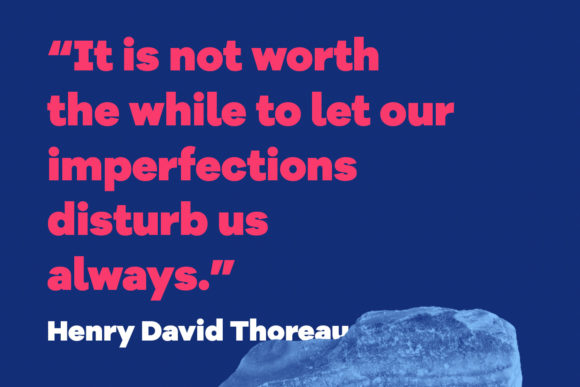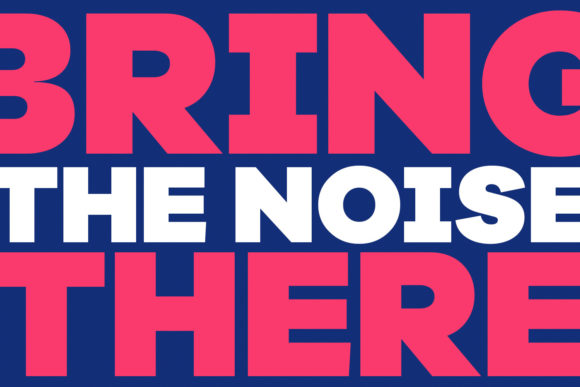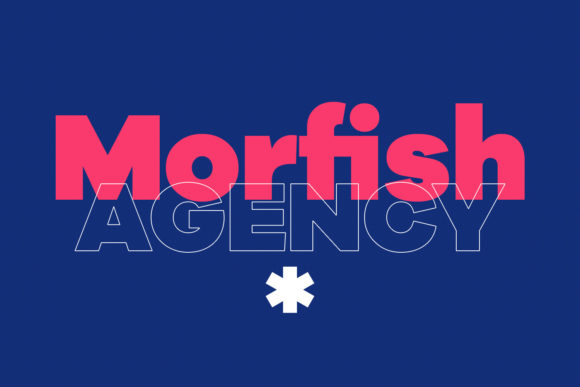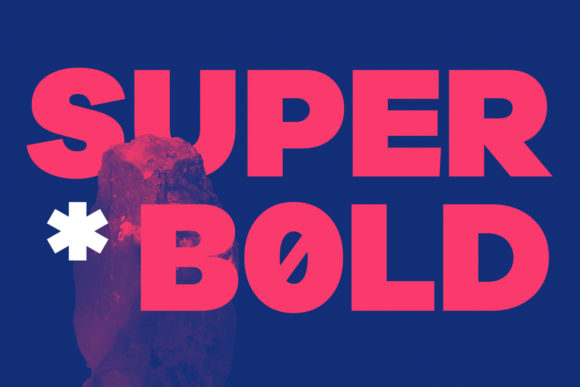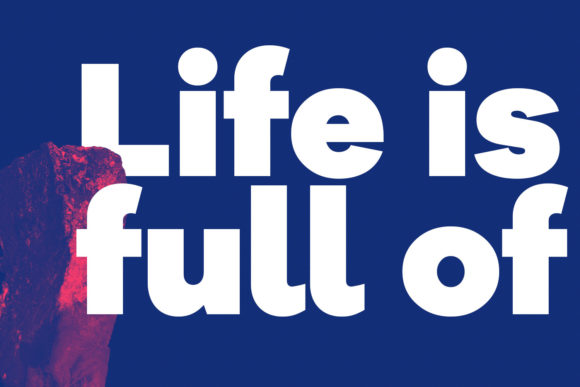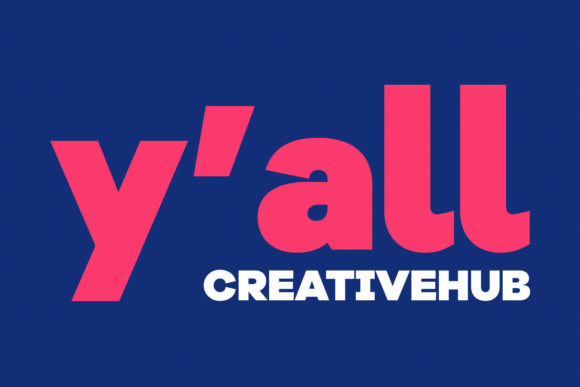
Bolgart Font: Elevate Your Designs with a Cool, Bold, and Thick Lettered Display Font
In the world of typography, fonts play a crucial role in conveying the tone and personality of a design. For designers and crafters looking to make a statement, Bolgart font is an excellent choice. This cool, bold, and thick lettered display font is designed to add a touch of strength, confidence, and dynamism to your designs. In this article, we’ll explore the features and benefits of Bolgart font, and how it can elevate your designs to the next level.
What is Bolgart Font?
Bolgart font is a display font that boasts a unique and striking appearance. Its bold and thick lettering makes it perfect for headlines, titles, and other design elements that require attention-grabbing typography. The font’s strong and confident personality is sure to make a lasting impression on your audience, making it an excellent choice for designers and crafters who want to add a touch of sophistication and style to their work.
Key Features of Bolgart Font
- Bold and Thick Lettering: Bolgart font features bold and thick lettering that makes it perfect for display purposes.
- Strong and Confident Personality: The font’s strong and confident personality makes it an excellent choice for designers and crafters who want to add a touch of sophistication and style to their work.
- Dynamic and Versatile: Bolgart font is dynamic and versatile, making it suitable for a wide range of design projects, from posters and flyers to logos and branding materials.
- Easily Readable: Despite its bold and thick lettering, Bolgart font is easily readable, making it perfect for use in a variety of design applications.
Benefits of Using Bolgart Font
So, why should you choose Bolgart font for your design projects? Here are just a few benefits of using this amazing font:
- Adds Tons of Stylish Character: Bolgart font can add tons of stylish character to your designs, making them stand out from the crowd.
- Perfect for Display Purposes: The font’s bold and thick lettering makes it perfect for display purposes, such as headlines, titles, and other design elements.
- Versatile and Dynamic: Bolgart font is versatile and dynamic, making it suitable for a wide range of design projects.
- Easily Customizable: The font is easily customizable, allowing you to adjust its size, color, and style to suit your design needs.
How to Use Bolgart Font in Your Designs
Using Bolgart font in your designs is easy. Here are a few tips to get you started:
- Pair it with Other Fonts: Bolgart font pairs well with other fonts, making it easy to create visually appealing and harmonious design combinations.
- Use it for Headlines and Titles: The font’s bold and thick lettering makes it perfect for use in headlines and titles.
- Add it to Your Logo and Branding Materials: Bolgart font can add a touch of sophistication and style to your logo and branding materials.
- Experiment with Different Colors and Sizes: Don’t be afraid to experiment with different colors and sizes to find the perfect combination for your design.
In conclusion, Bolgart font is a cool, bold, and thick lettered display font that can add tons of stylish character to your designs. Its strong and confident personality makes it an excellent choice for designers and crafters who want to make a statement. With its versatility, dynamic appearance, and ease of use, Bolgart font is sure to become a staple in your design toolkit. So why wait? Download Bolgart font today and start elevating your designs to the next level!